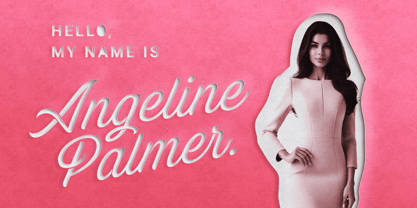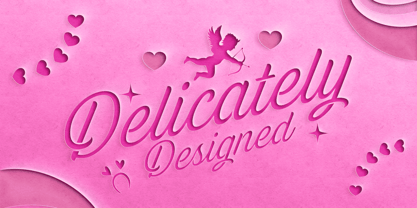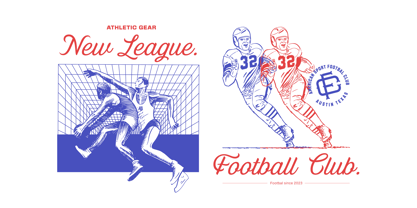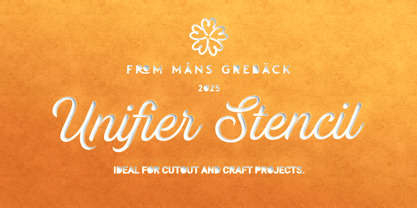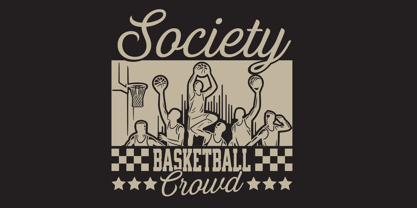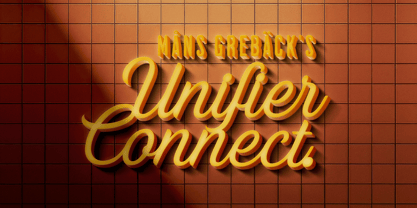
Unifier
por Mans Greback
La familia tipográfica Unifier fue diseñada por Måns Grebäck y publicada por Mans Greback. Unifier contiene 3 estilos y opciones de paquete familiar. Más información sobre esta familia
Unifier Script is a versatile font, an elegant choice that brings a calligraphic touch to any project.
With its flowing cursive letters and consistent stroke width, it offers a balanced mix of readability and style, making it perfect for logos and titles. The font is specifically made with laser cutting and Cricut projects in mind.
The Unifier Stencil variant features connected whitespaces that allow all parts to link together, making it an excellent option for craft projects and cutout designs.
Similarly, the Unifier Connect version has all parts connected, which means you can have it cutout in a single piece. Imagine a name or quote on a laser cut piece of wood or paper.
This font will add a charming and cohesive flair to both digital and printed applications.
The font is built with advanced OpenType functionality and guaranteed top-notch quality, containing stylistic and contextual alternates, ligatures and more automatic and manual features; all to give you full control and customizability.
It has extensive lingual support, covering all Latin-based languages, from North Europa to South Africa, from America to South-East Asia. It contains all characters and symbols you'll ever need, including all punctuation and numbers.
This craft typeface is designed by Mans Greback.